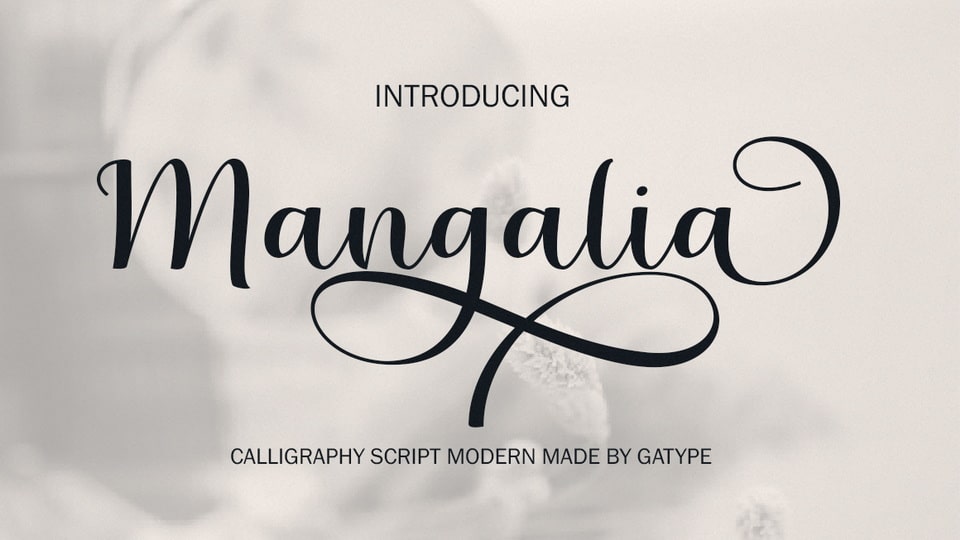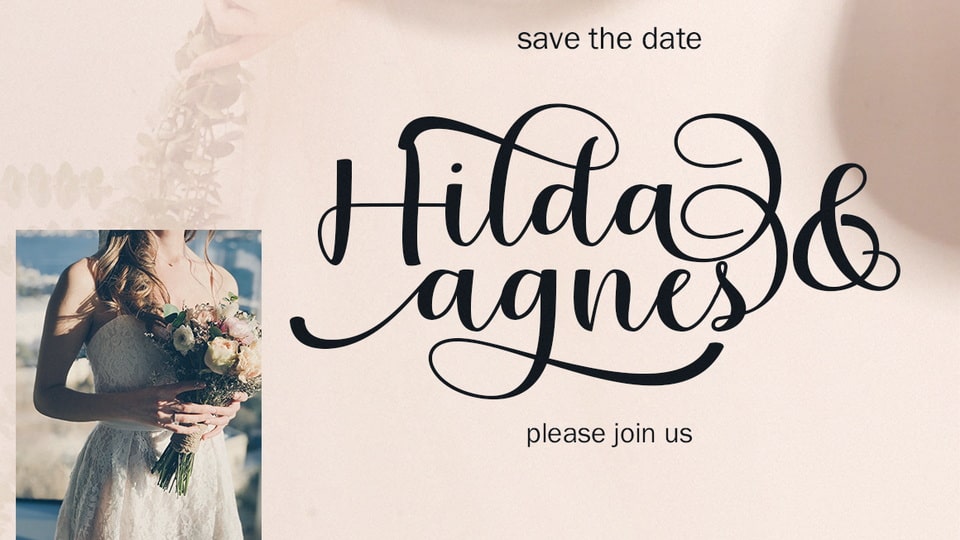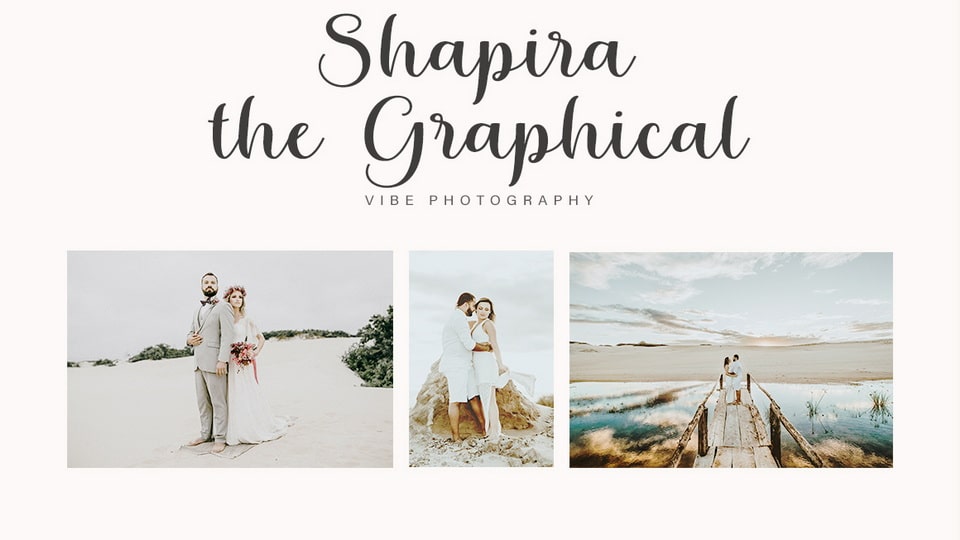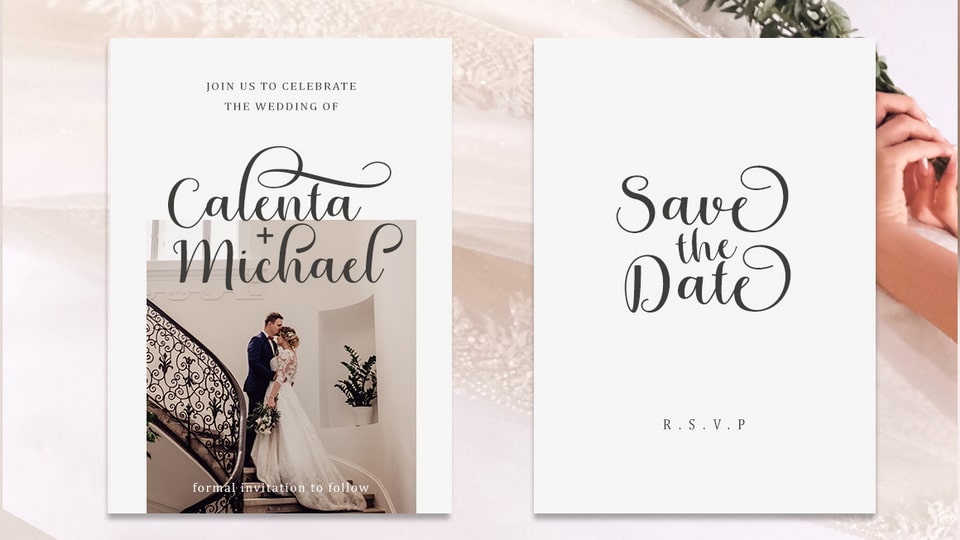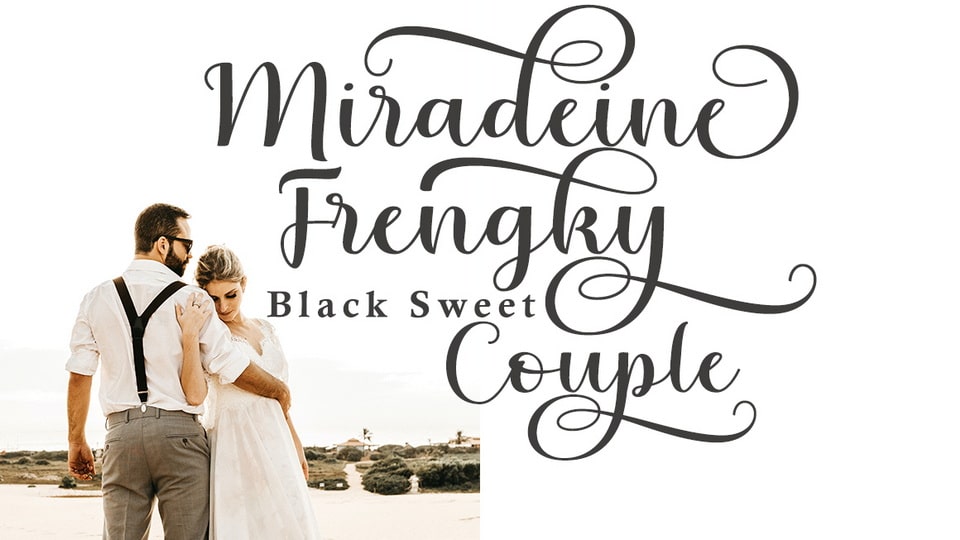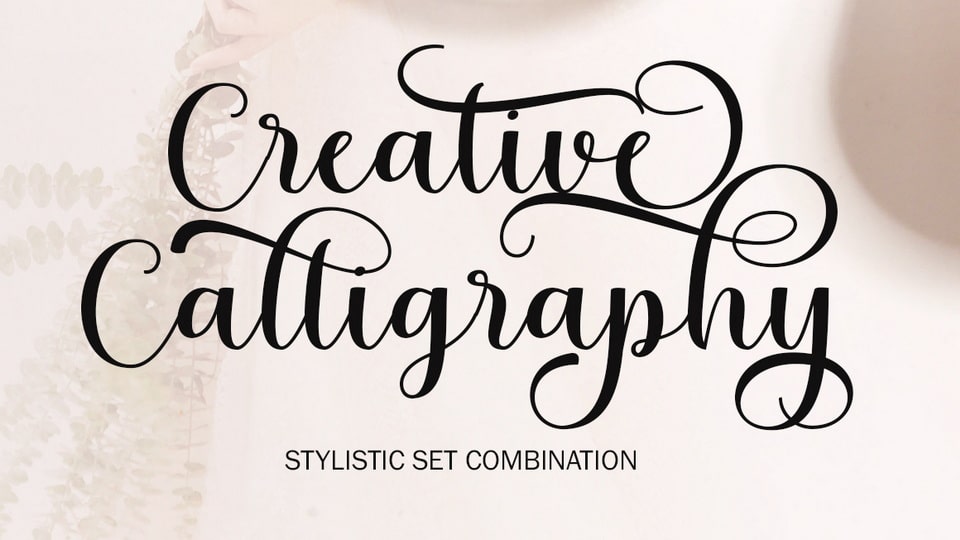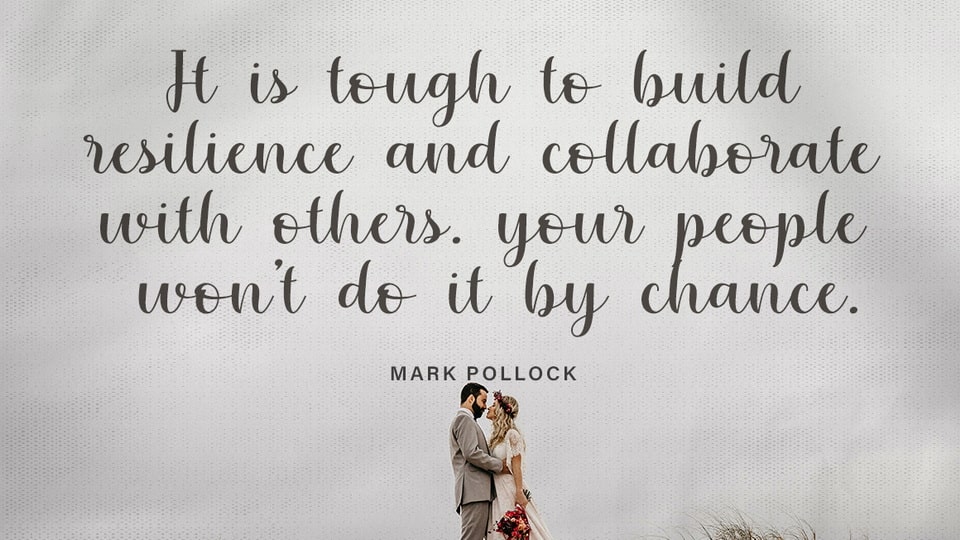
Manggalia is a natural and elegant handwritten font, it is perfect for logos, invitations, stationery, wedding designs, social media posts, advertisements, product packaging, product design, labels, photography, watermarks, special events, or anything else.